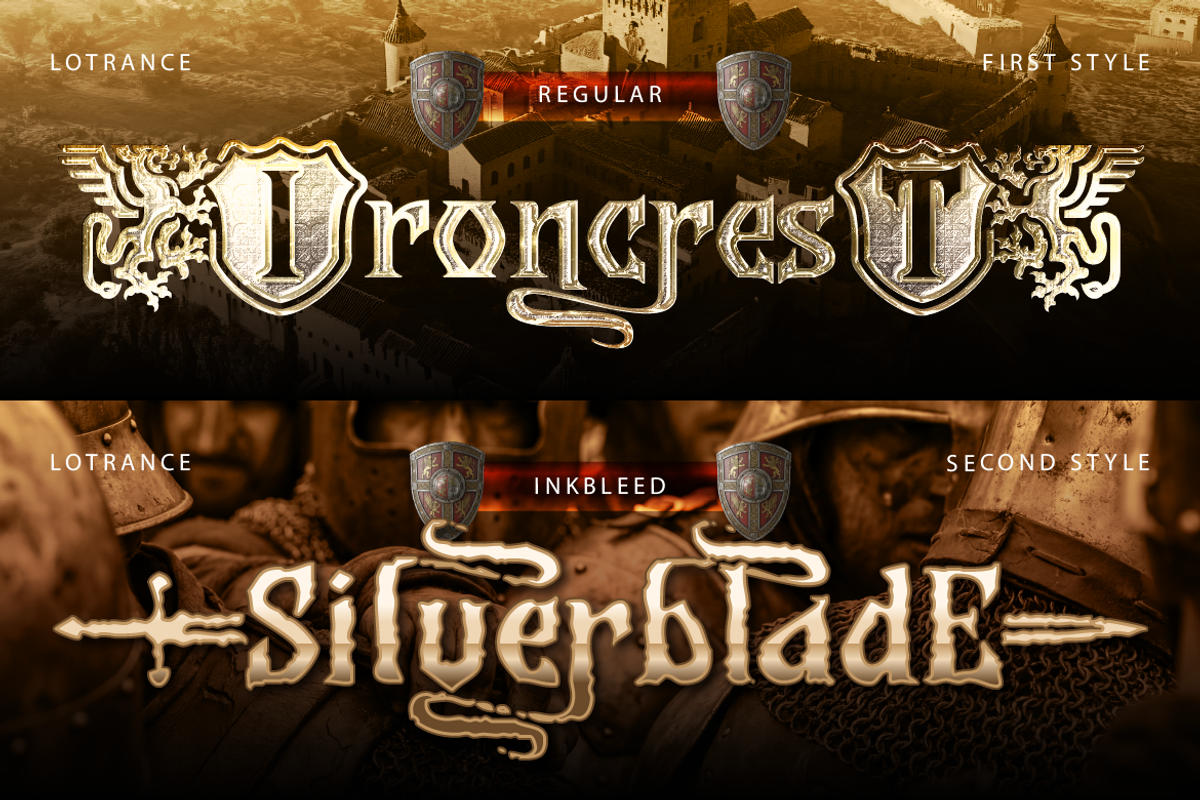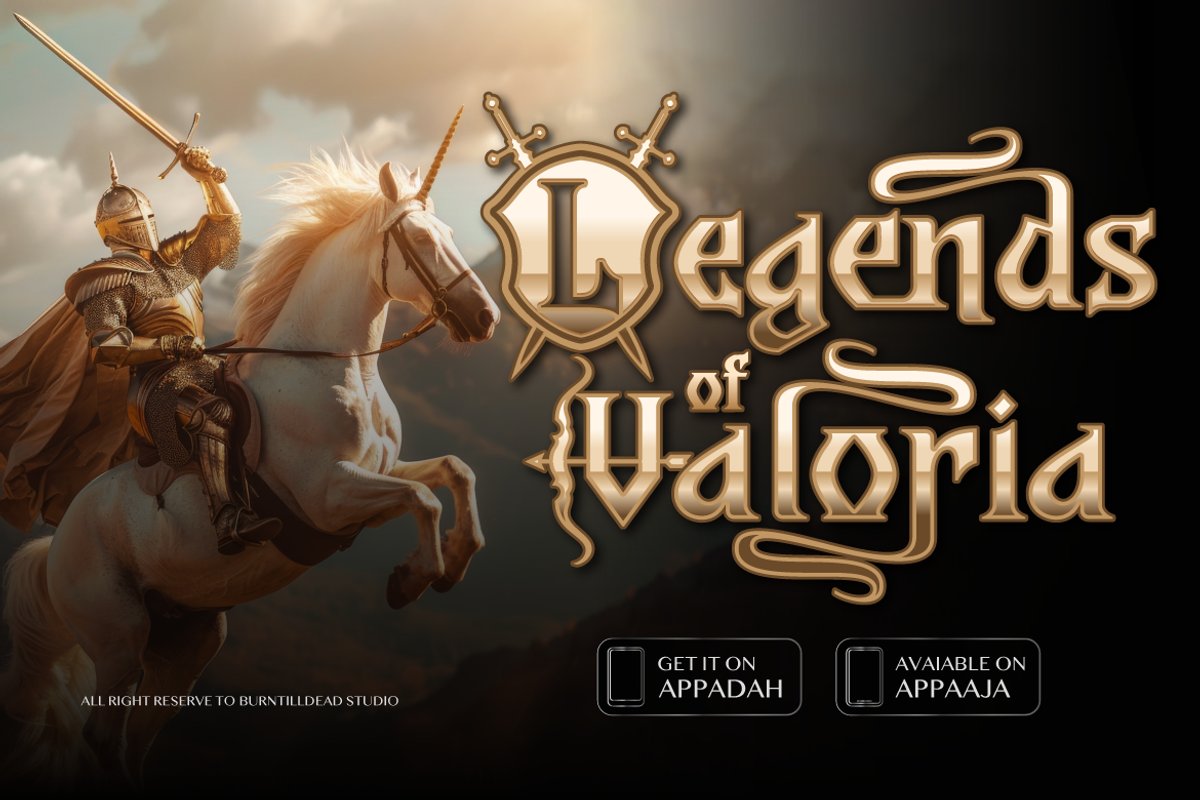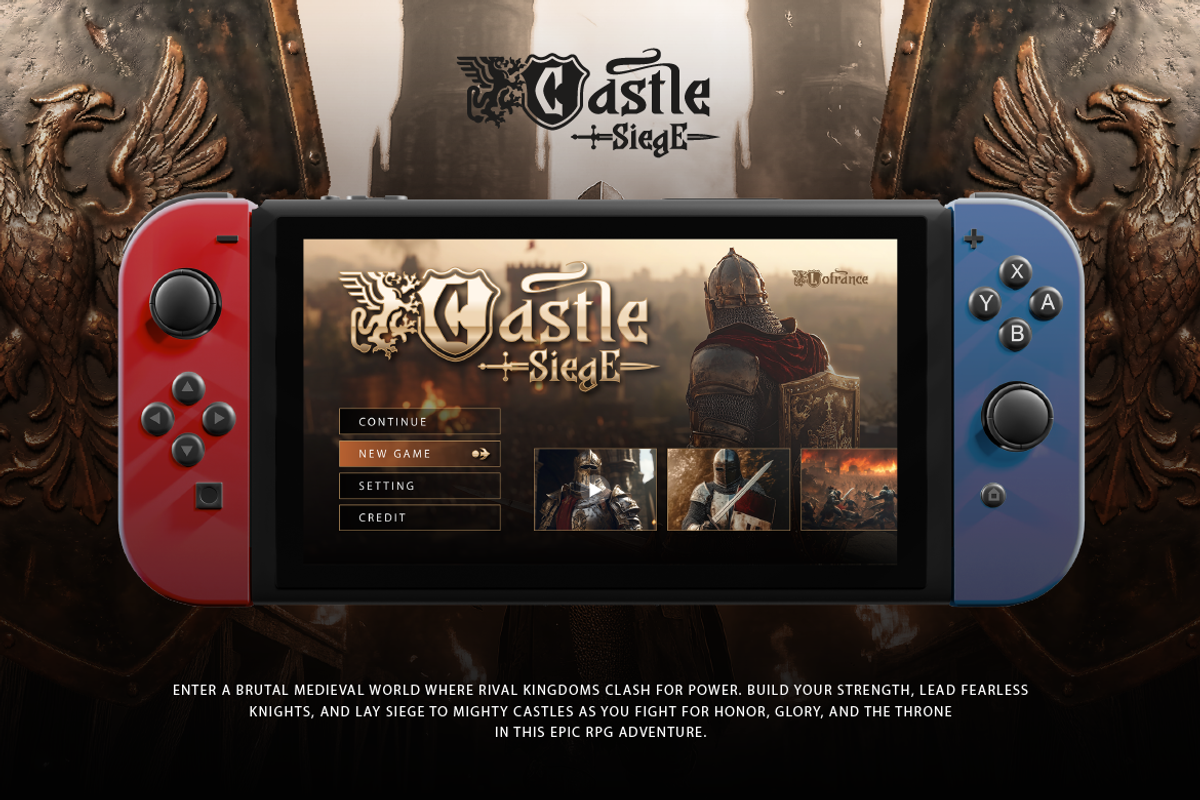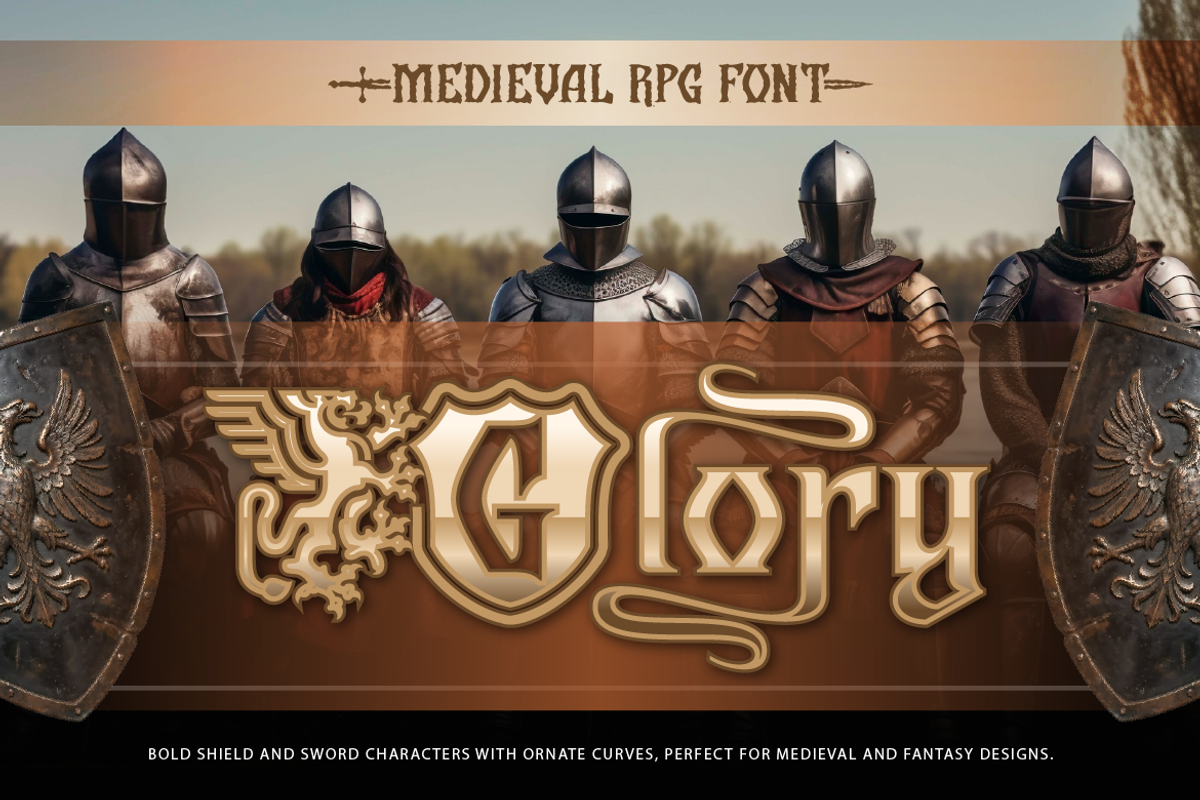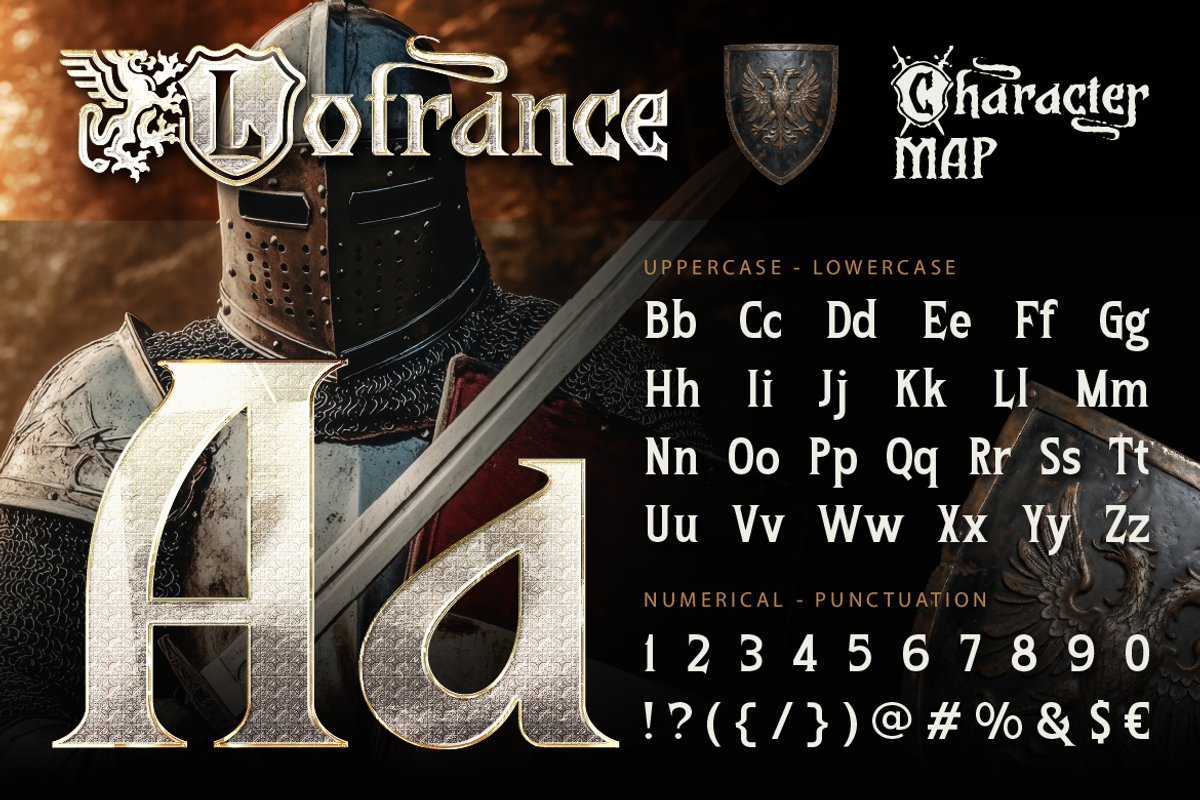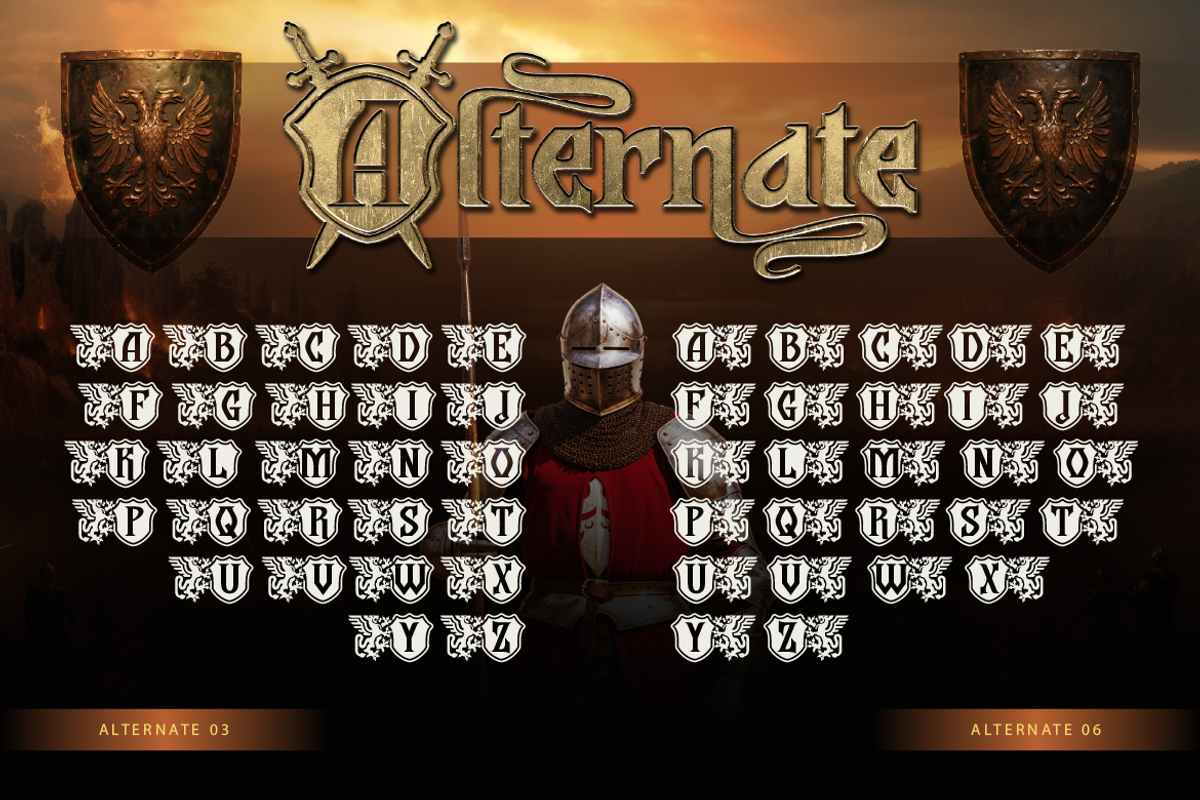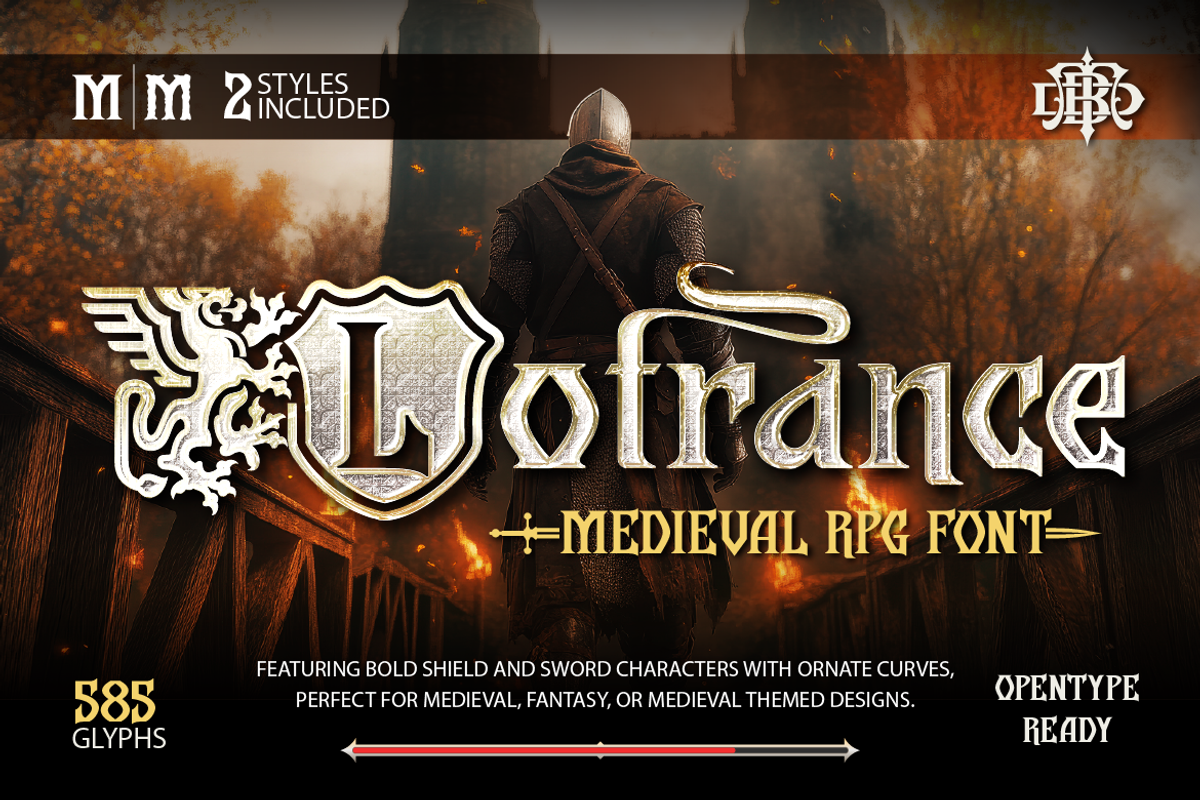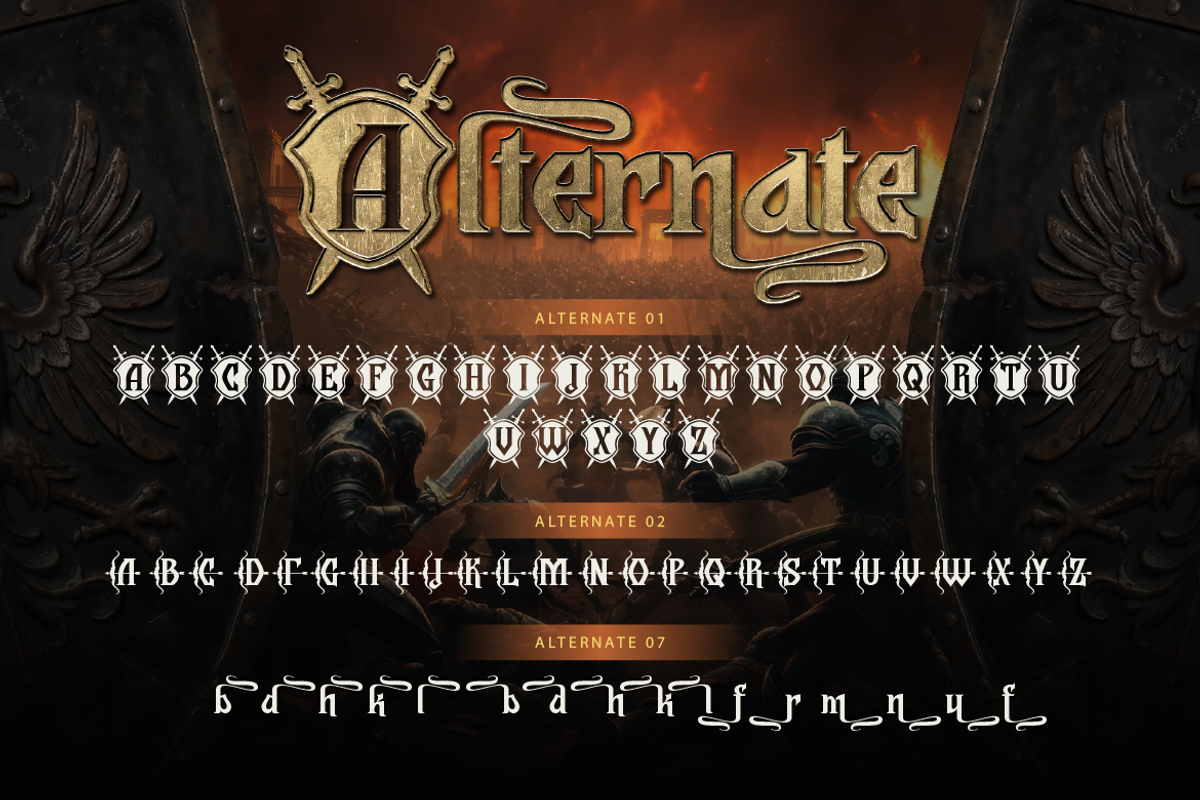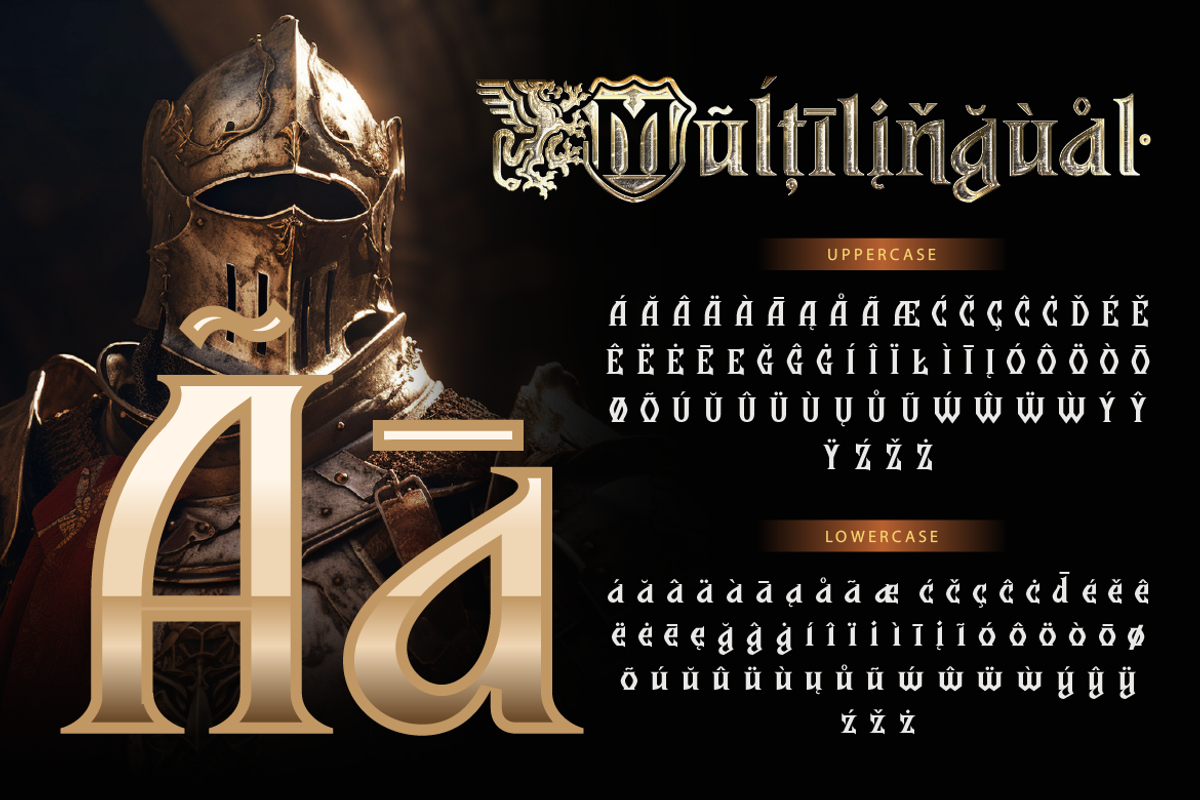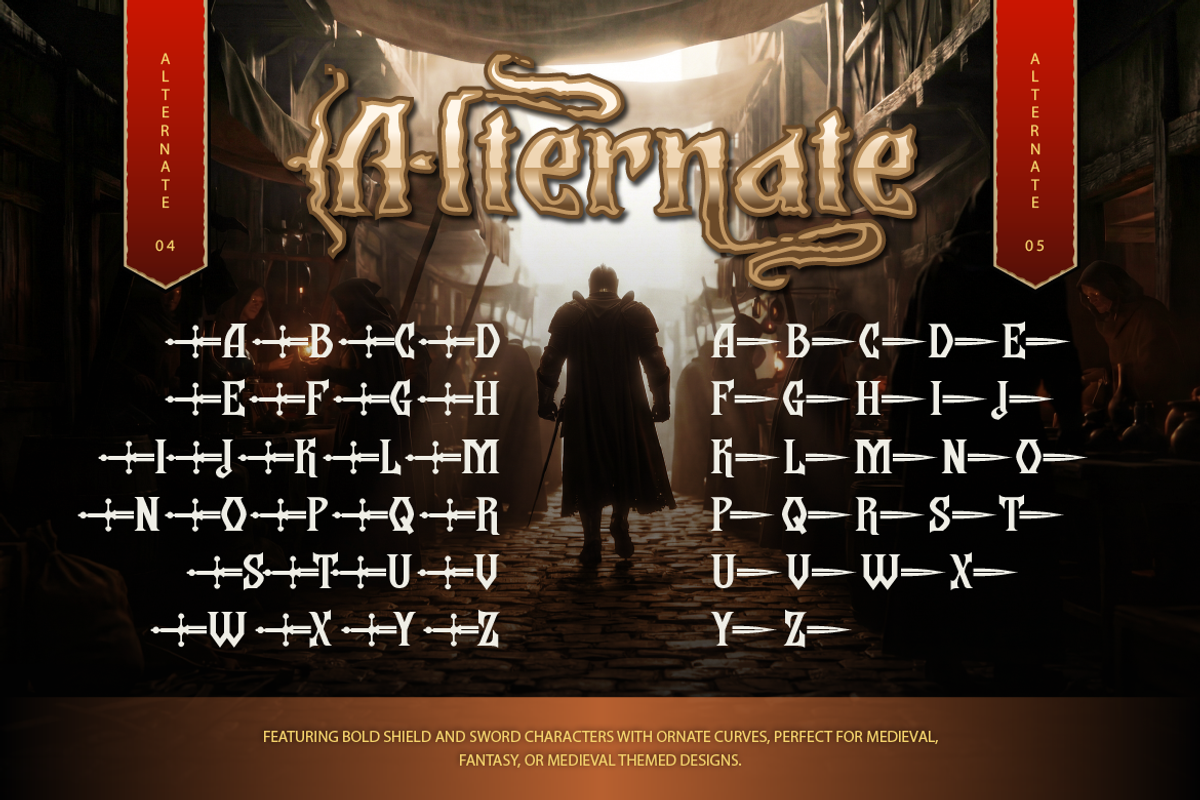
Lotrance
Lotrance is a bold medieval display font inspired by the world of knights, kingdoms, and epic fantasy adventures. Designed with detailed shield-style letters, sword ornaments, and elegant curves, this font brings a strong medieval atmosphere to any design. Each character is carefully crafted to create a powerful and heroic look, perfect for titles that need a dramatic and legendary feel. Whether you're designing a fantasy game, movie title, or medieval themed branding, Lotrance helps your project stand out with its distinctive style. Perfect for projects such as game titles, fantasy book covers, movie posters, RPG interfaces, branding, merchandise, medieval themed designs, game UI / UX, logos & branding.